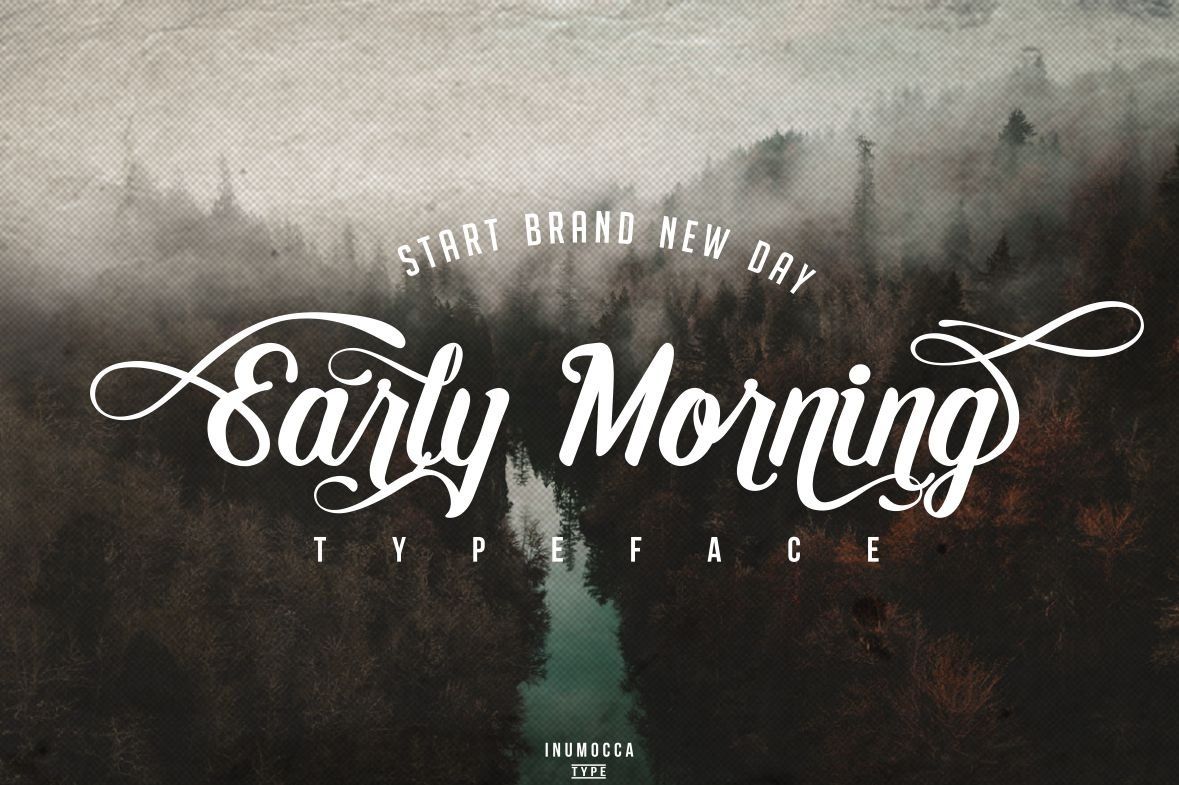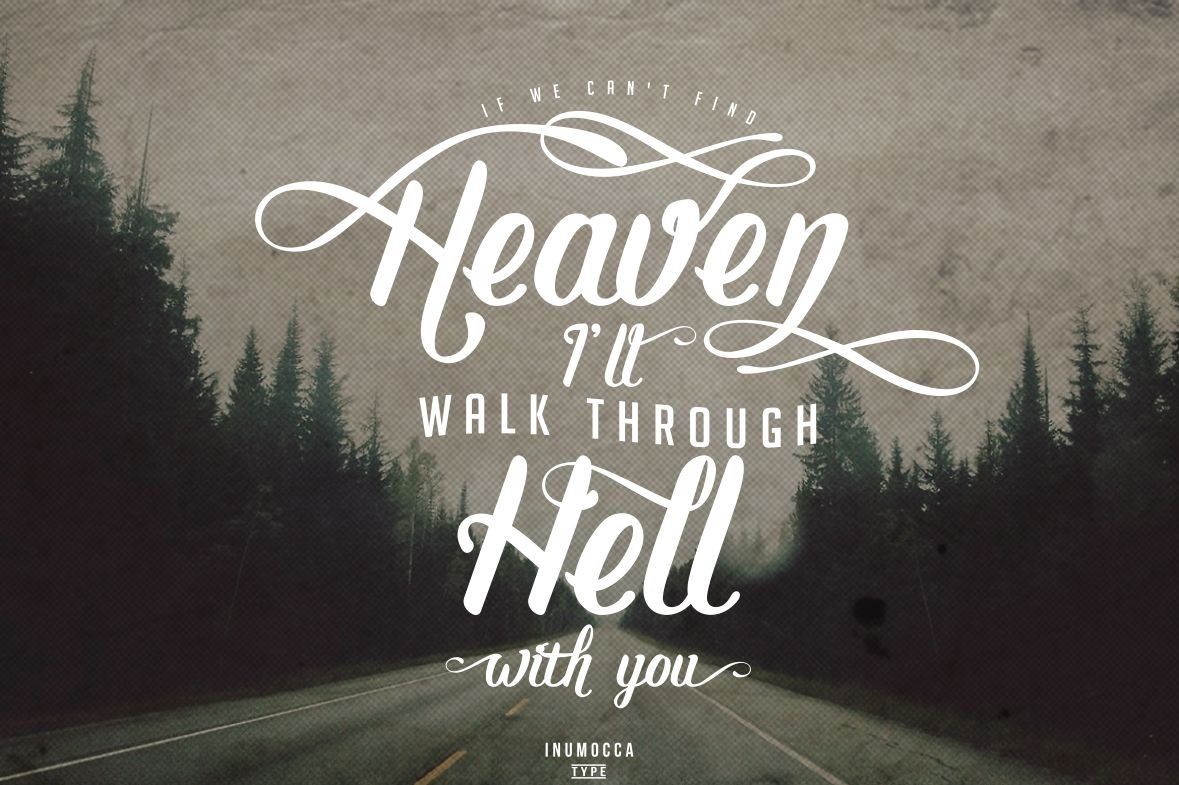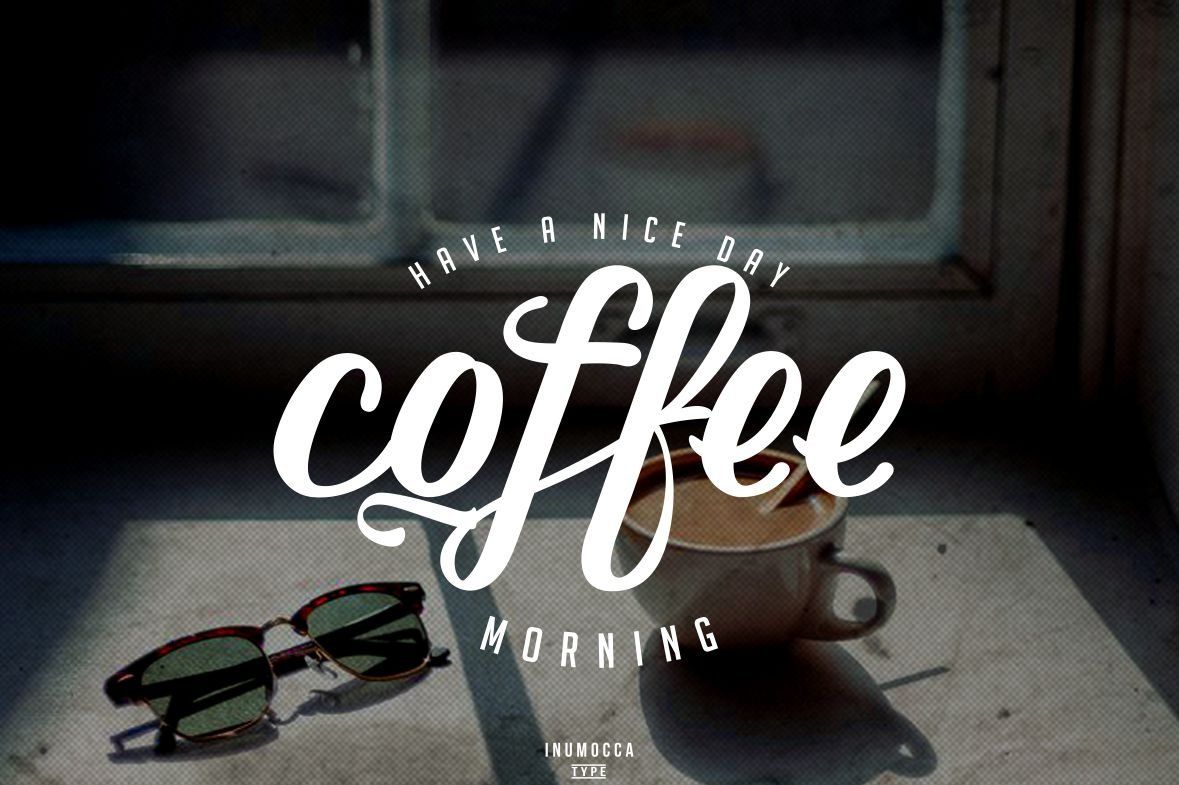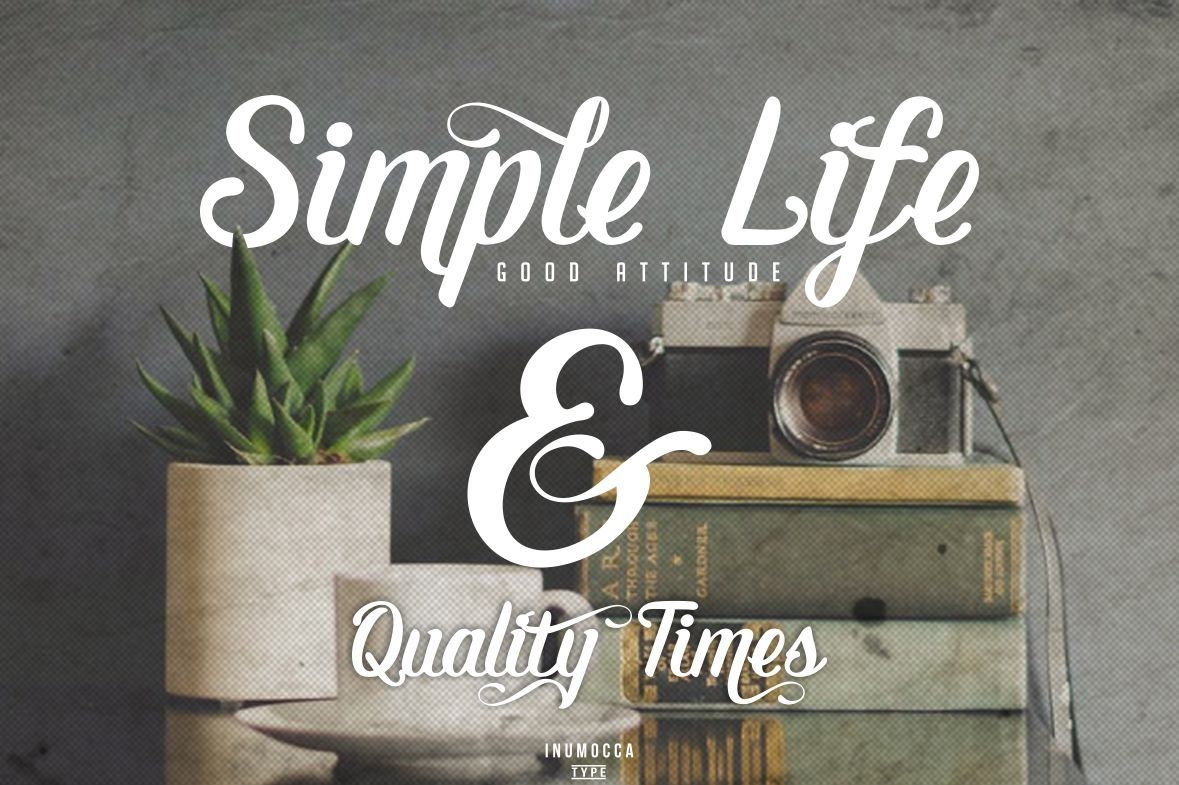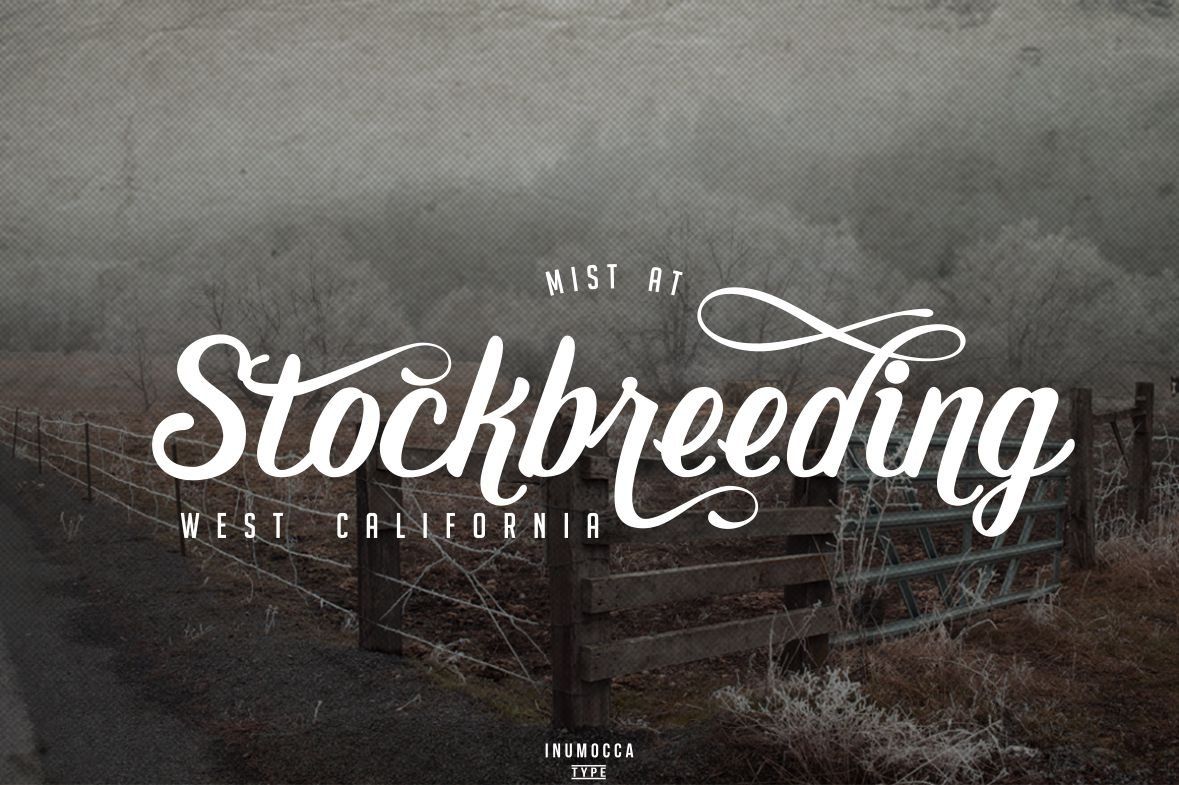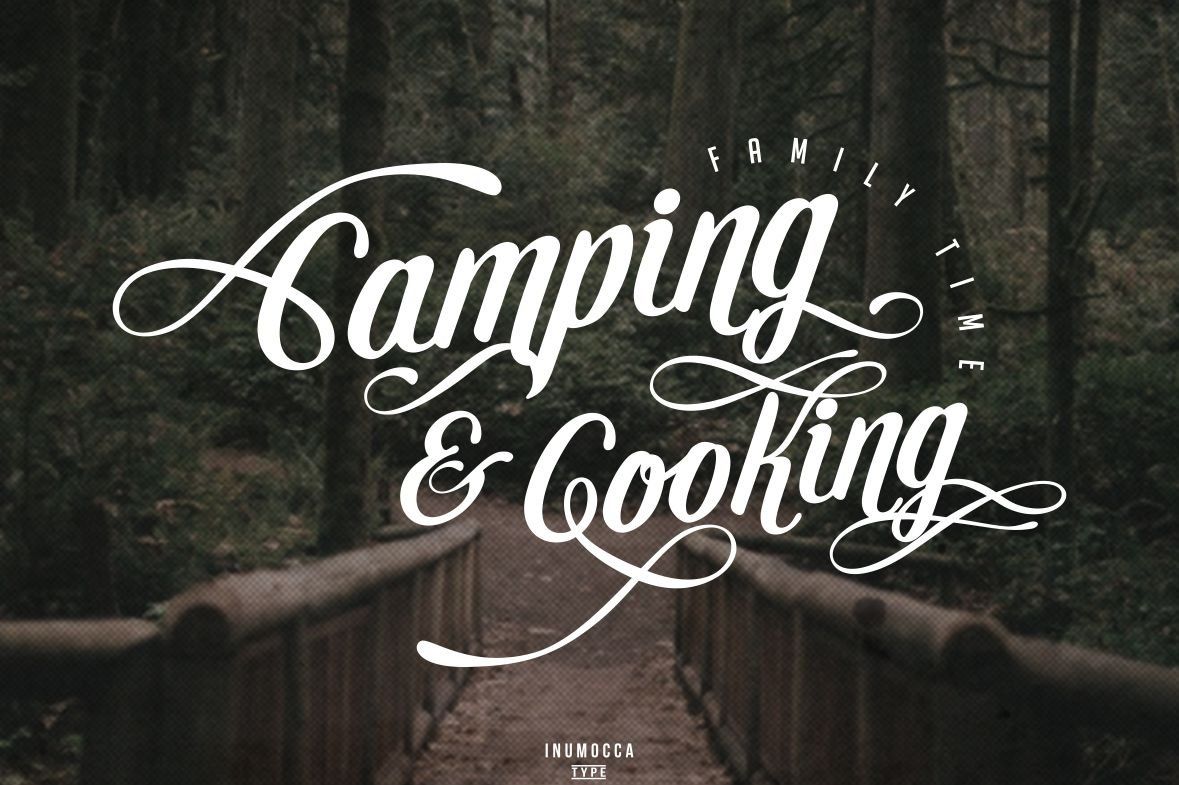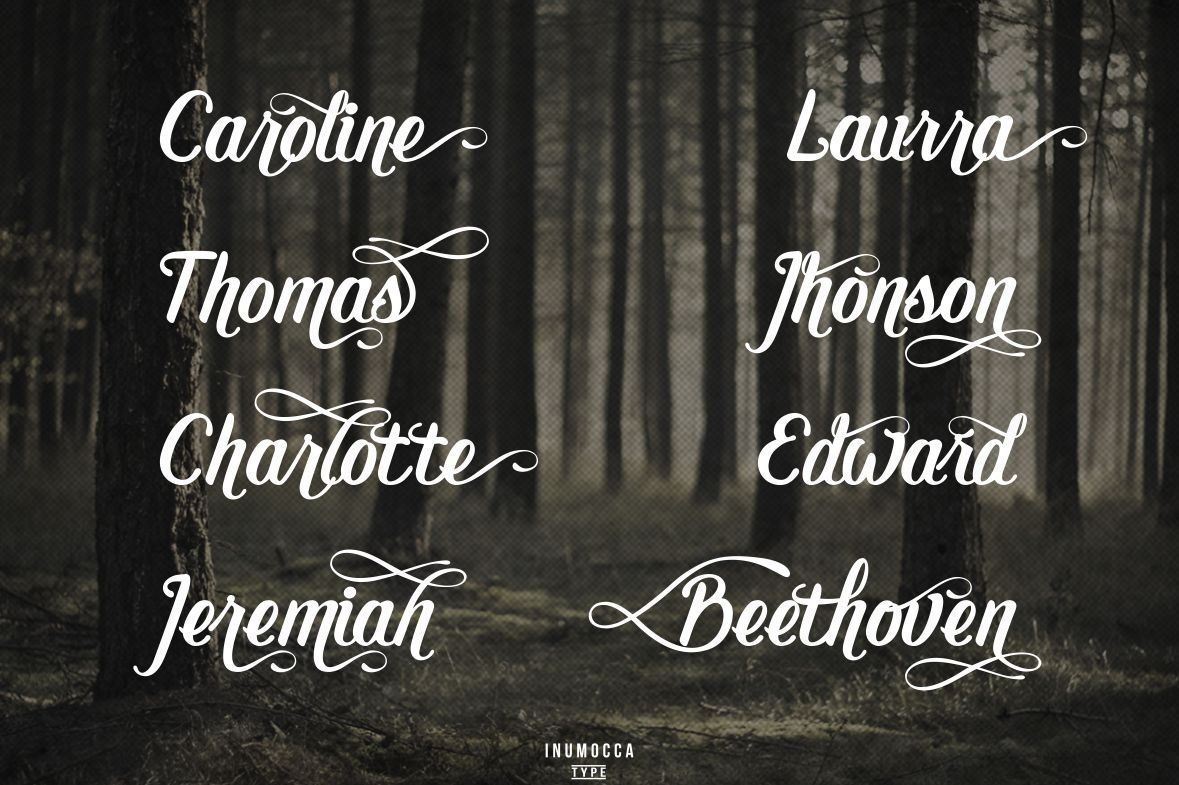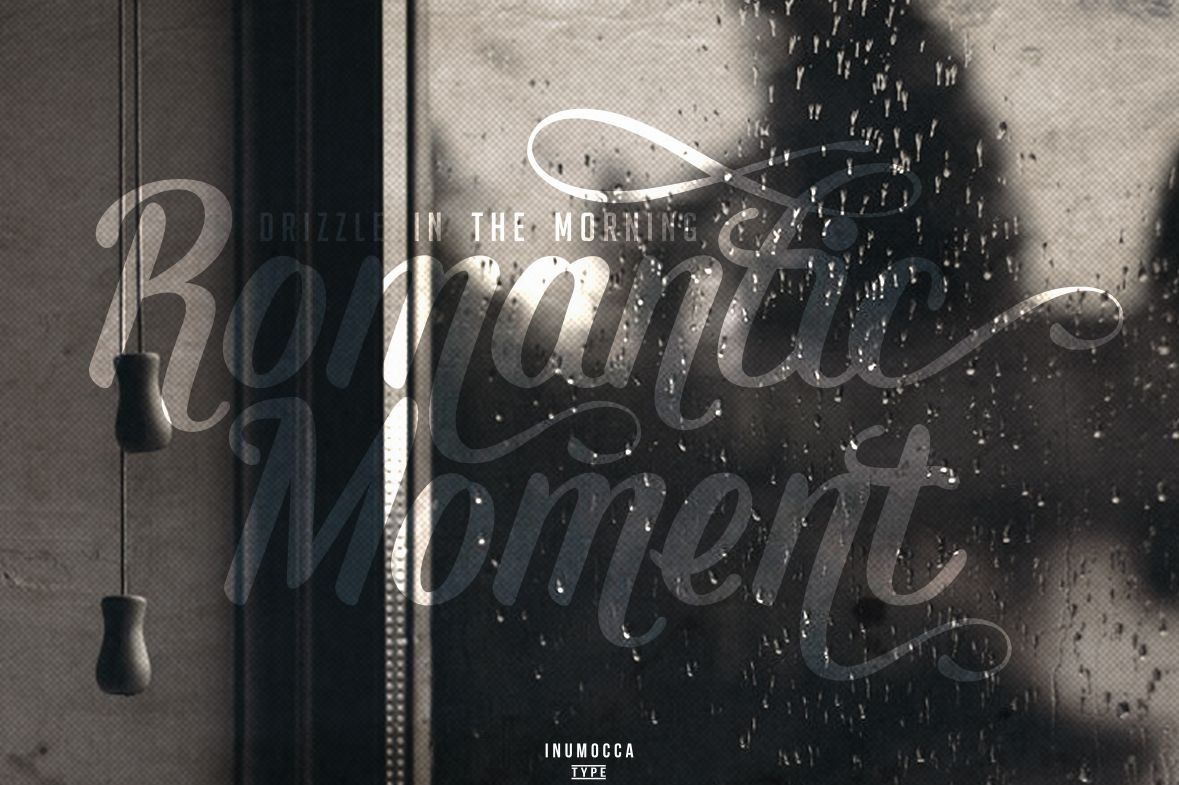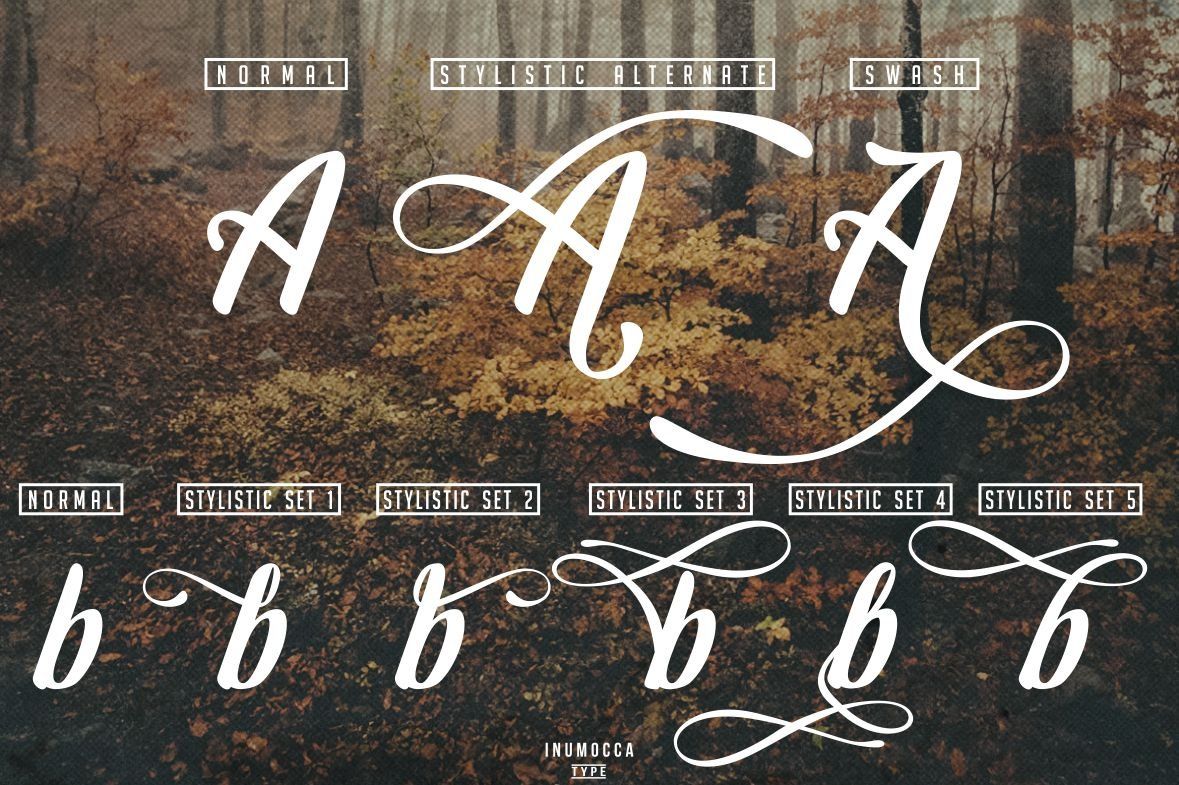
Early Morning Typeface its a modern classic typeface, really beautiful to typography, your brand, your shop, Logos, catalog, wedding invitation , all about of fashions and arts.
Early Morning Typeface, more 400 unique glyphs
Early Morning Typeface, support with Opentype :
• Unique glyphs
• with cool Stylistic Alternates
• Swash
• Stylistic Sets 1,2,3,4,5
• Ligatures
• Multilingual characters
• UPPERCASE
• LowerCase
• Numeric,
• Symbol,
• Punctuation character